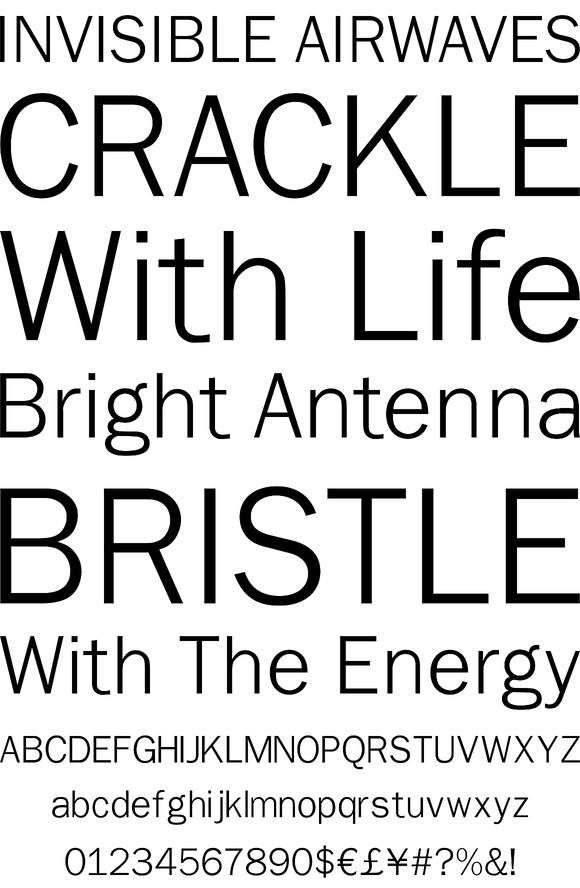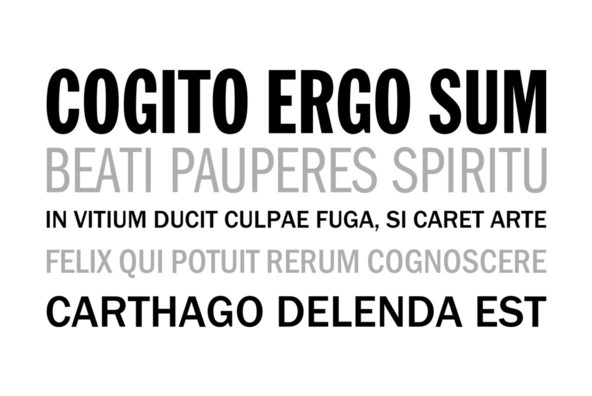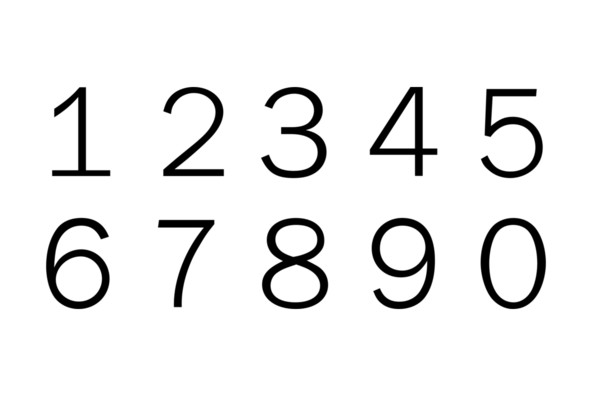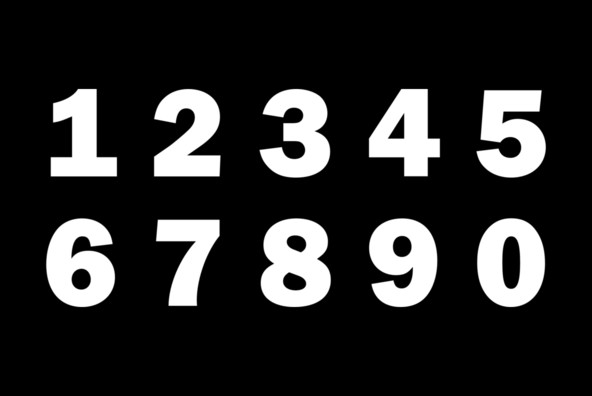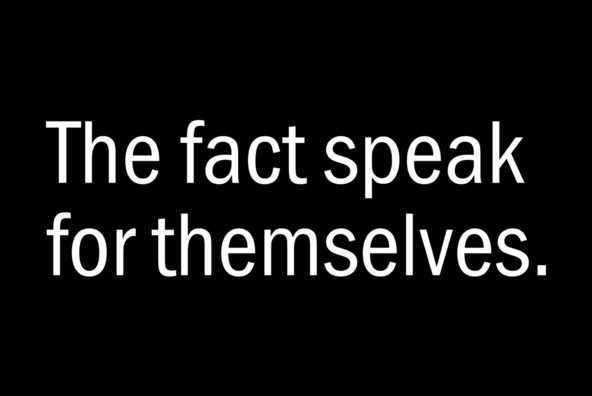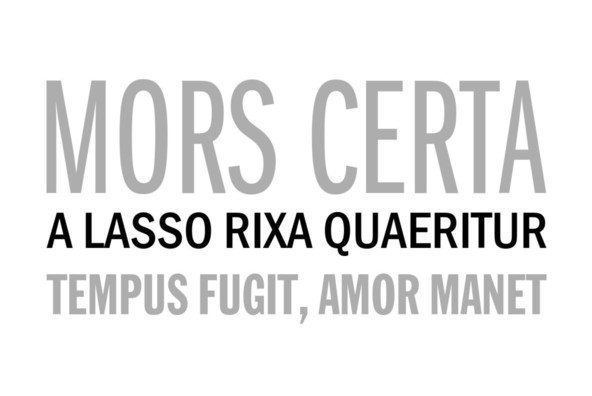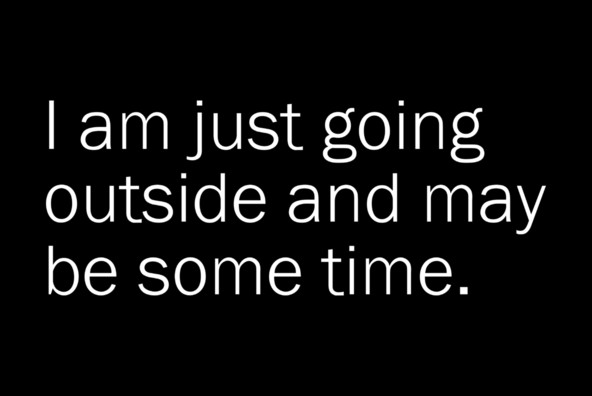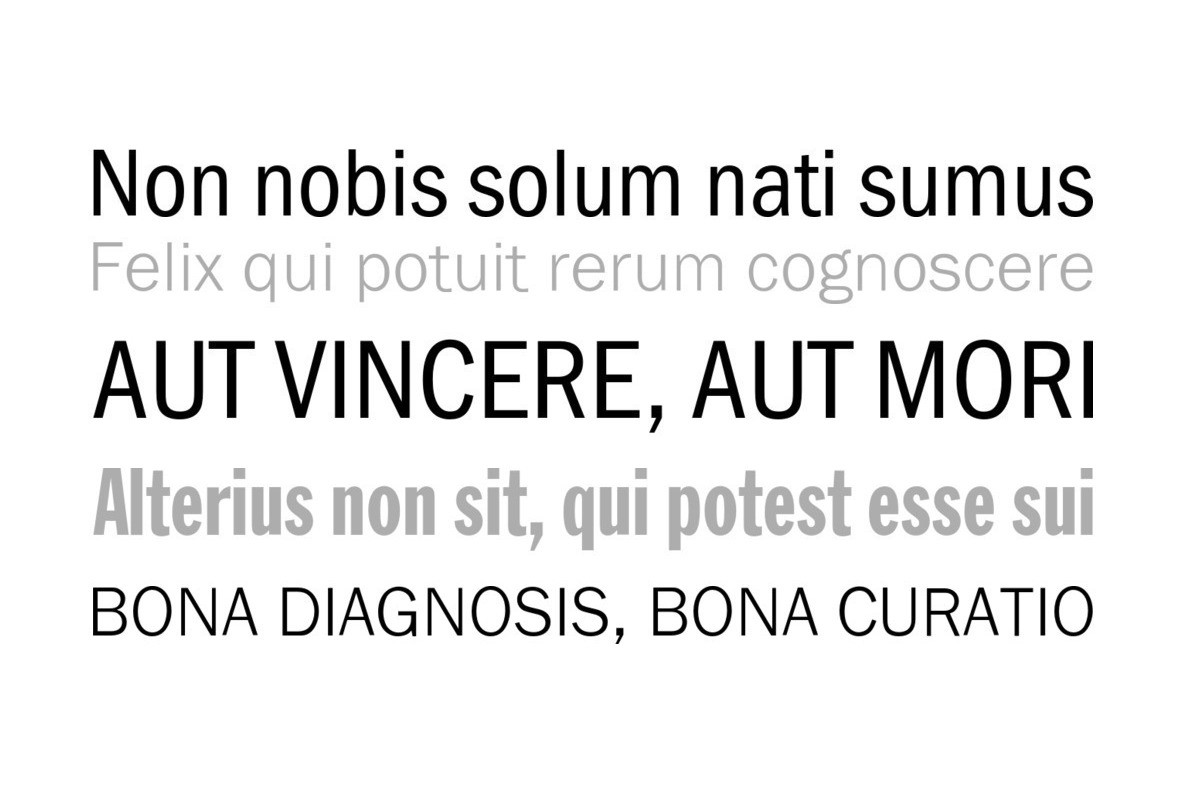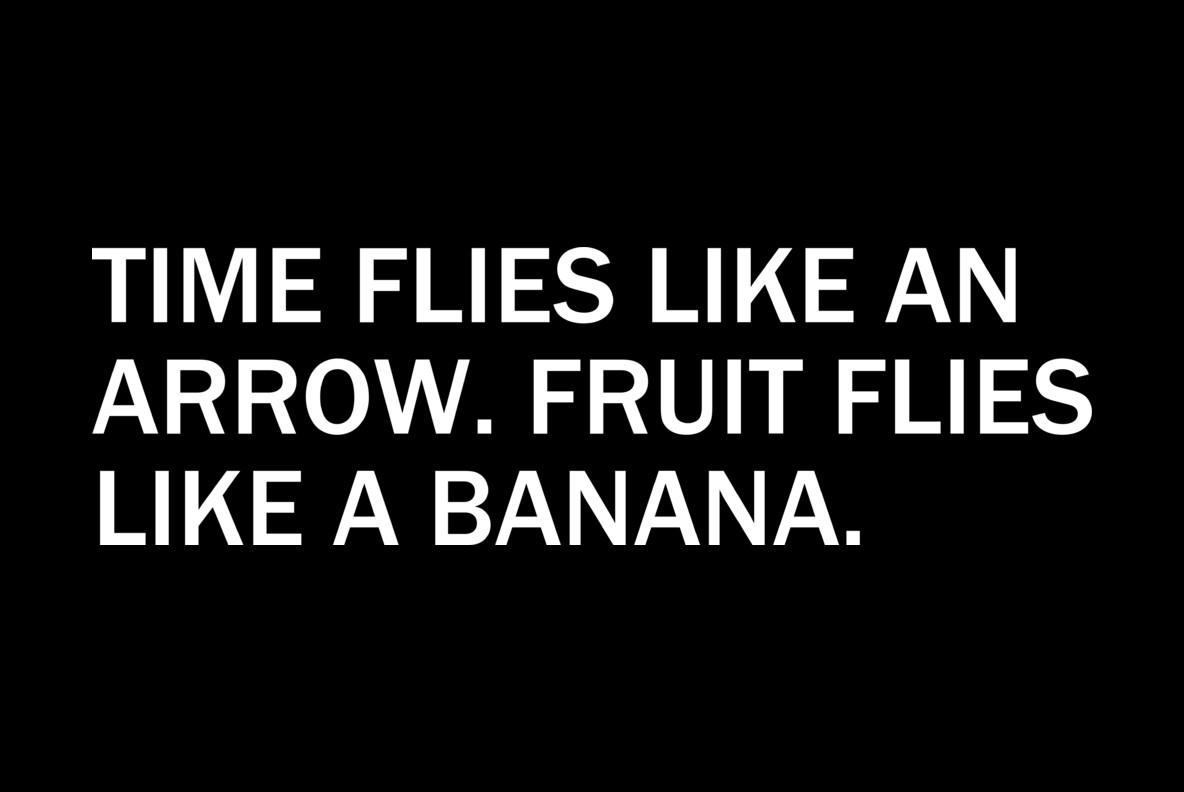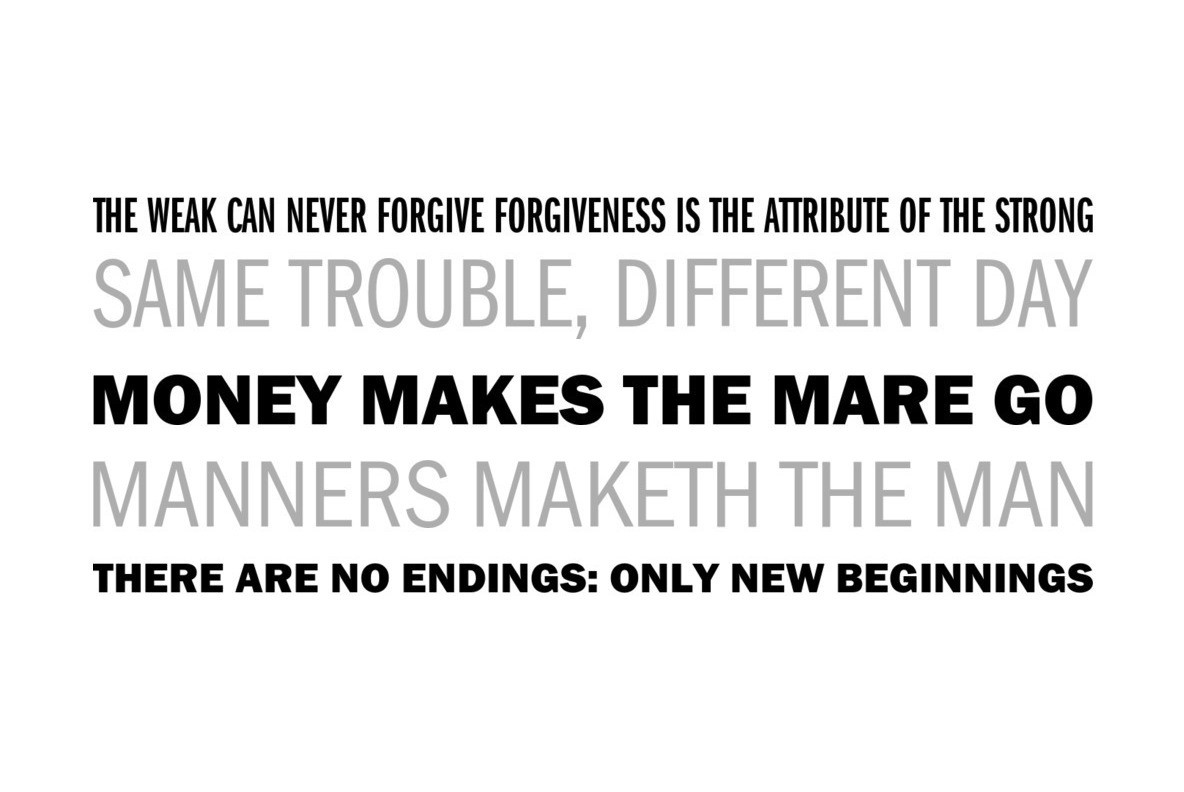
Franklin Gothic Font
This is URW's digitization of the famous Franklin Gothic, the realist sans-serif typeface originated by Morris Fuller Benton in 1902. The typeface continues to be seen in many high-profile situations, from books to billboards, was featured on the cover of Lady Gaga's second album, The Fame Monster, is the official typeface of the Museum of Modern Art in New York, and was even the resident typeface of the PBS series The Electric Company. Franklin Gothic Condensed was also used for subtitles in the Star Wars films.
Franklin Gothic is appropriate for any and all headline and body copy when you need smooth power and simple authority, particularly in advertising and publishing situations.